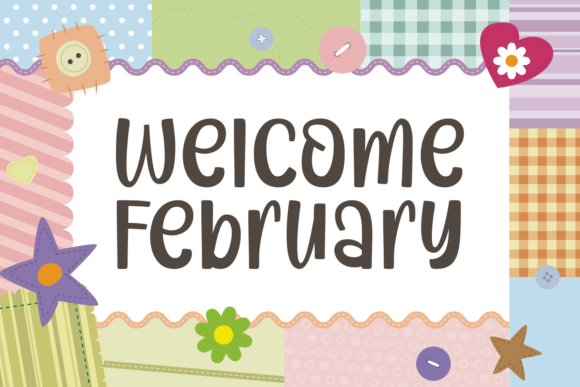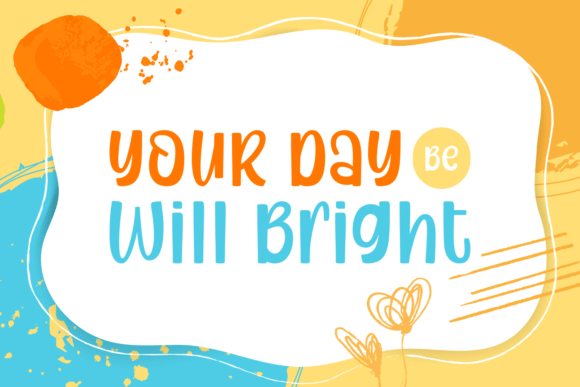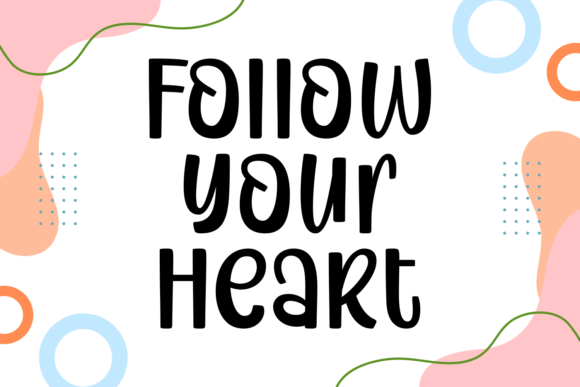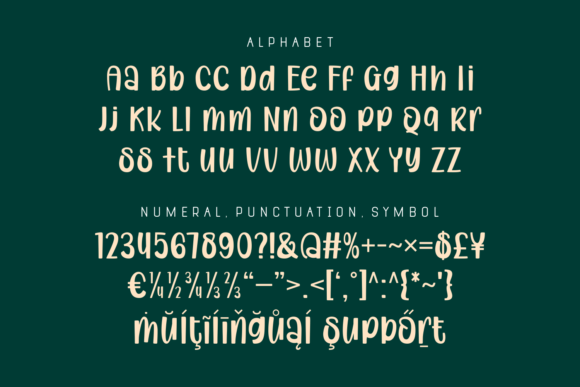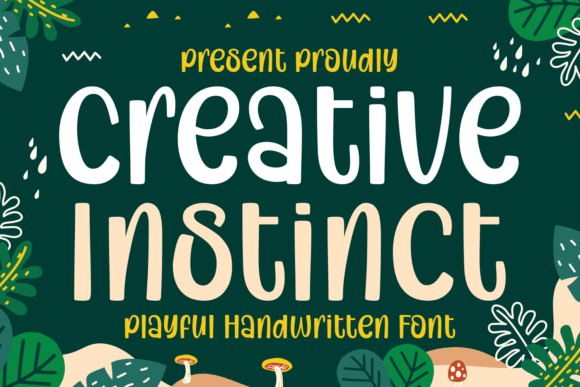
Unleash Your Creativity with Creative Instinct Font
Are you a designer, crafter, or DIY enthusiast looking for a font that can add a touch of fun and personality to your projects? Look no further than Creative Instinct Font! This playful handwritten font is perfect for anyone who wants to infuse their work with a unique, hand-crafted look.
The Unique Features of Creative Instinct Font
Creative Instinct Font boasts a distinctive handwritten style characterized by thick and thin lines, giving it a one-of-a-kind appearance. The font’s varying line widths create a sense of movement and fluidity, making it perfect for adding a touch of whimsy to your designs.
Whether you’re working on a branding project, crafting a handmade card, or creating a DIY tutorial, Creative Instinct Font is the perfect choice. Its versatility and playfulness make it suitable for a wide range of applications, from digital designs to print materials.
What Makes Creative Instinct Font So Special?
- Playful Handwritten Style: Creative Instinct Font features a carefree, handwritten style that’s perfect for adding a personal touch to your projects.
- Unique Line Variation: The font’s thick and thin lines create a sense of movement and fluidity, giving it a truly hand-crafted look.
- Versatile and Adaptable: Creative Instinct Font can be used for a wide range of applications, from digital designs to print materials.
- Easy to Read: Despite its playful nature, Creative Instinct Font remains easy to read, making it perfect for body text and headings.
How to Use Creative Instinct Font in Your Projects
Creative Instinct Font can be used in a variety of ways to add a touch of personality to your projects. Here are a few ideas to get you started:
- Branding and Logo Design: Use Creative Instinct Font to create a unique and memorable brand identity.
- Handmade Crafts: Add a personal touch to your handmade cards, gift tags, and other crafts with Creative Instinct Font.
- DIY Tutorials: Use Creative Instinct Font to create eye-catching headings and titles for your DIY tutorials and blog posts.
- Digital Designs: Incorporate Creative Instinct Font into your digital designs, such as social media graphics, presentations, and email newsletters.
Tips for Getting the Most Out of Creative Instinct Font
To get the most out of Creative Instinct Font, here are a few tips to keep in mind:
- Experiment with Font Sizes: Play around with different font sizes to create visual interest and hierarchy in your designs.
- Pair with Other Fonts: Combine Creative Instinct Font with other fonts to create a unique and visually appealing typography combination.
- Use Color Effectively: Use color to enhance the playful nature of Creative Instinct Font and add an extra layer of personality to your designs.
| Font Name | Creative Instinct Font |
| Author | Ade (7NTypes) |
Creative Instinct Font is a unique and versatile font that’s perfect for designers, crafters, and DIY enthusiasts looking to add a touch of fun and personality to their projects. With its playful handwritten style, thick and thin lines, and easy readability, Creative Instinct Font is sure to become a favorite in your font collection.